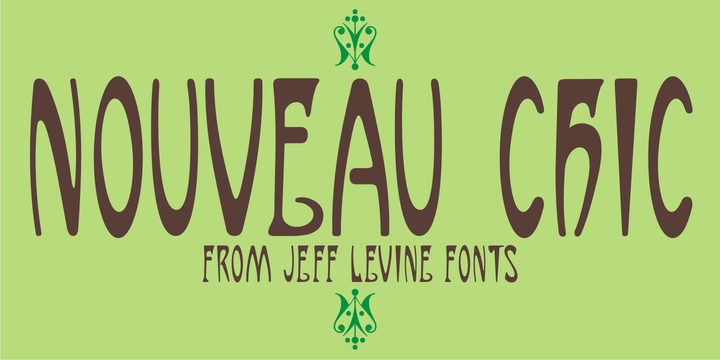
Nouveau Chic JNL
by Jeff Levine
The Nouveau Chic JNL Font Family was designed by Jeff Levine and published by Jeff Levine. Nouveau Chic JNL contains 1 styles. More about this family
Nouveau Chic JNL is based on vintage source material, and offers an elegant, condensed Art Nouveau typeface with a hint of Arabian or Middle Eastern influences.